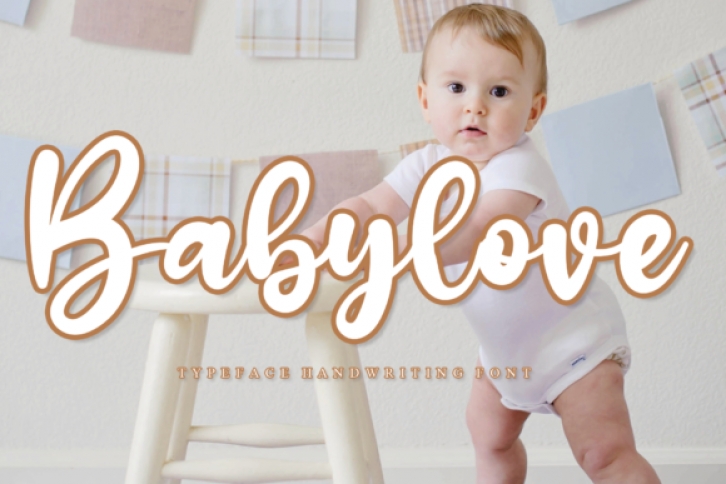
Babylove is a lovely and flowing handwritten font. It can be used for various purposes such as logos, wedding invitations, headings, t-shirts, letterhead, signage, labels, news, posters, badges and so much more.